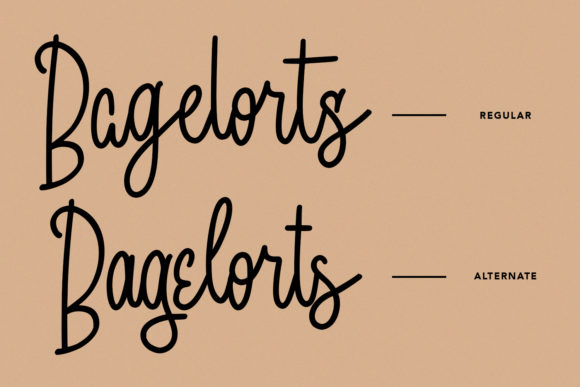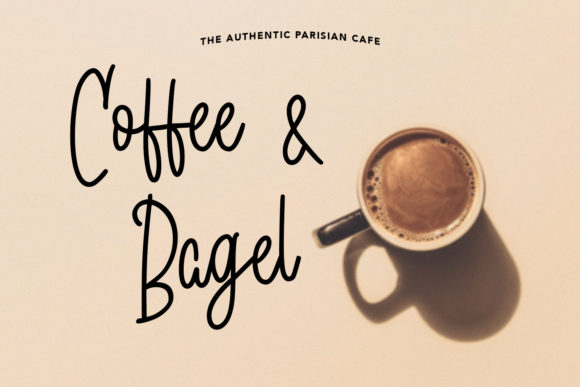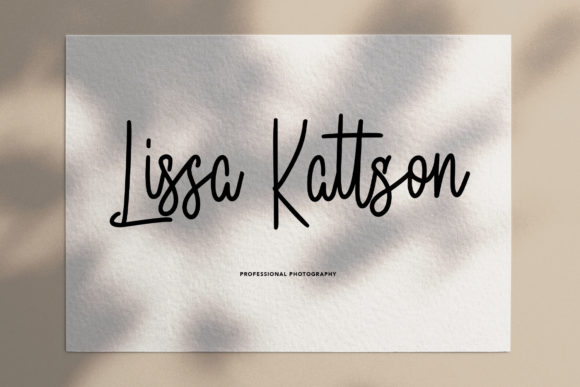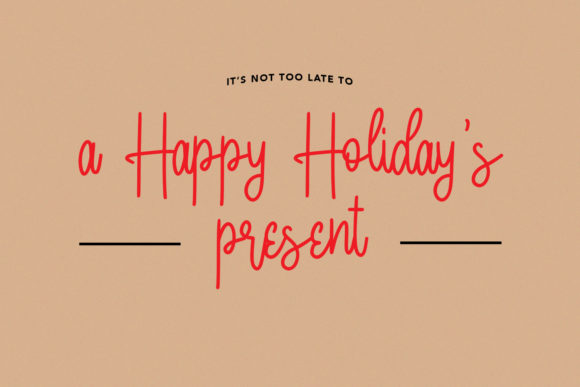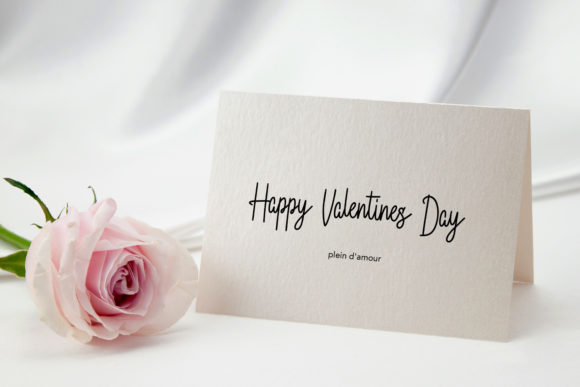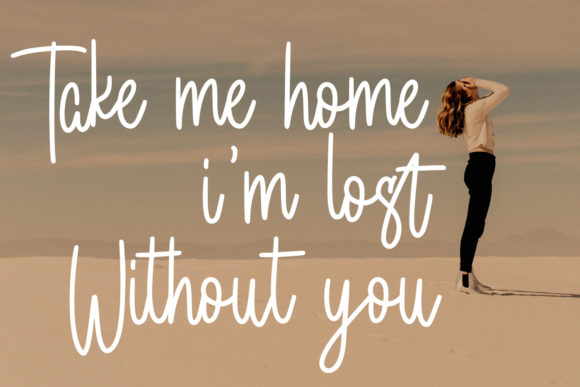
Introducing Bagelorts Font: The Sweet and Organic Handwritten Font for Your Design Needs
Are you a designer or crafter looking for a font that can add a touch of sweetness and romance to your projects? Look no further than Bagelorts Font! This beautiful, handwritten font is perfect for a variety of design ideas and is sure to bring a joyful and organic feel to your work.
What is Bagelorts Font?
Bagelorts Font is a sweet and organic handwritten font that is designed to bring a touch of whimsy and romance to your designs. With its gentle, flowing lines and delicate curves, this font is perfect for creating beautiful and eye-catching text that will capture the attention of your audience.
Characteristics of Bagelorts Font
So, what makes Bagelorts Font so special? Here are just a few of its key characteristics:
- Sweet and Organic: Bagelorts Font has a sweet and organic feel that is perfect for designs that require a touch of whimsy and romance.
- Handwritten: This font is a true handwritten font, with each letter and character carefully crafted to create a unique and personal feel.
- Gentle: The lines and curves of Bagelorts Font are gentle and flowing, making it perfect for designs that require a soft and soothing touch.
- Versatile: Whether you’re creating a logo, a poster, or a social media graphic, Bagelorts Font is versatile enough to be used for a wide range of design ideas.
How to Use Bagelorts Font in Your Designs
So, how can you use Bagelorts Font in your designs? Here are a few ideas to get you started:
- Wedding and Event Designs: Bagelorts Font is perfect for wedding and event designs, such as invitations, programs, and signage.
- Branding and Packaging: Use Bagelorts Font to add a touch of personality and whimsy to your branding and packaging designs.
- Social Media Graphics: Create eye-catching social media graphics with Bagelorts Font, perfect for Instagram, Facebook, and more.
- Stationery and Paper Crafts: Add a touch of sweetness and romance to your stationery and paper crafts with Bagelorts Font.
Tips for Pairing Bagelorts Font with Other Fonts
When pairing Bagelorts Font with other fonts, here are a few tips to keep in mind:
- Pair with a Bold Font: Pair Bagelorts Font with a bold font to create contrast and add visual interest to your design.
- Use a Serif Font: Pair Bagelorts Font with a serif font to add a touch of sophistication and elegance to your design.
- Experiment with Script Fonts: Try pairing Bagelorts Font with other script fonts to create a beautiful and cohesive look.
In conclusion, Bagelorts Font is a beautiful and versatile handwritten font that is perfect for designers and crafters looking to add a touch of sweetness and romance to their projects. With its gentle, flowing lines and delicate curves, this font is sure to bring a joyful and organic feel to your work. Whether you’re creating wedding and event designs, branding and packaging, or social media graphics, Bagelorts Font is the perfect choice.